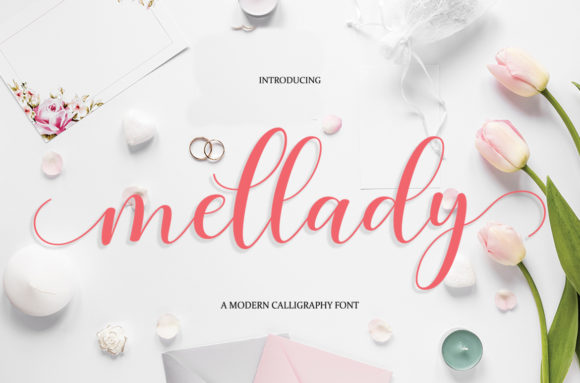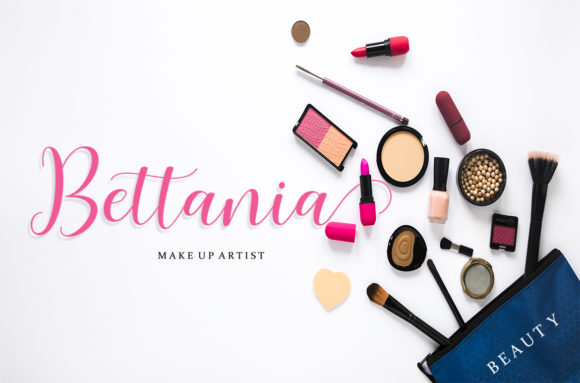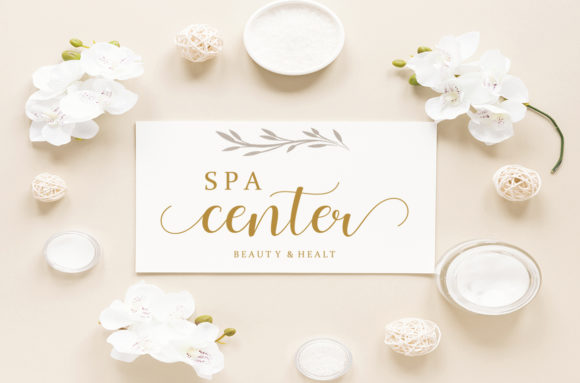
Introduction to Mellady Font
Mellady is an enchanting handwritten font.
This versatile script font has a wide spectrum of applications ranging from greeting cards to headlines and is guaranteed to add a romantic feel to your next project This font is PUA encoded which means you can access all glyphs and swashes with ease.
Key Features of Mellady Font
Why Choose Mellady Font?
Mellady Font offers exceptional quality and versatility, making it a valuable addition to your design toolkit. Whether you’re creating for personal projects or commercial use, Mellady Font delivers professional results.